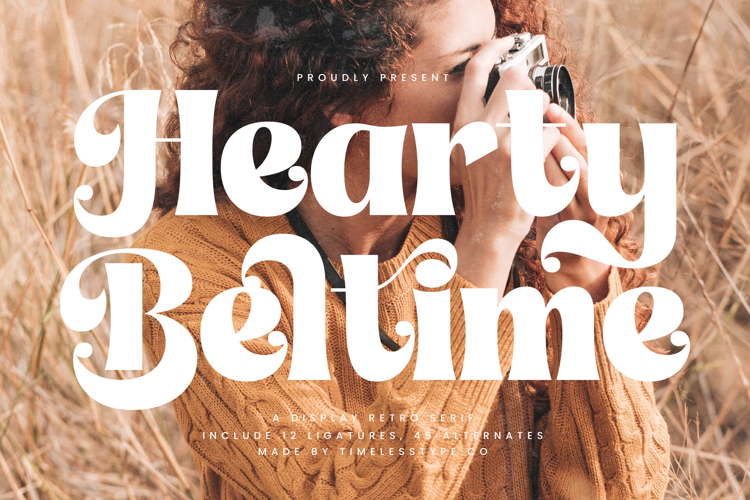
Hearty Beltime - Display Retro Serif
Hearty Beltime Typeface is a retro display serif font that radiates warmth, playfulness, and vintage charm. With 12 ligatures and 45 stylistic alternates, this font gives designers plenty of creative possibilities to craft expressive and nostalgic typography. Its bold strokes, rounded edges, and ornamental swirls reflect a retro aesthetic while maintaining modern usability, making it perfect for projects that want to evoke a cozy yet stylish vibe. Hearty Beltime stands out as a versatile choice for both lifestyle and artistic designs.